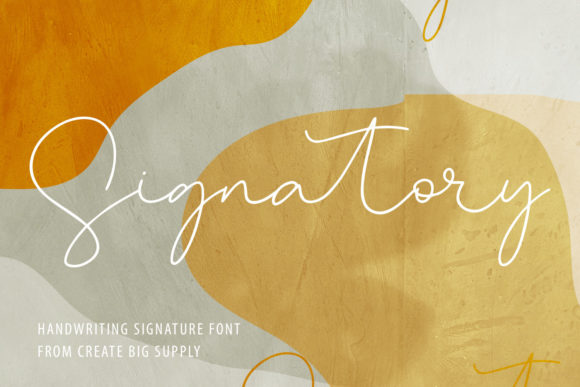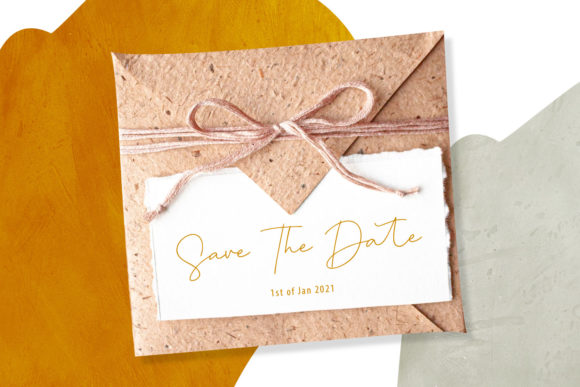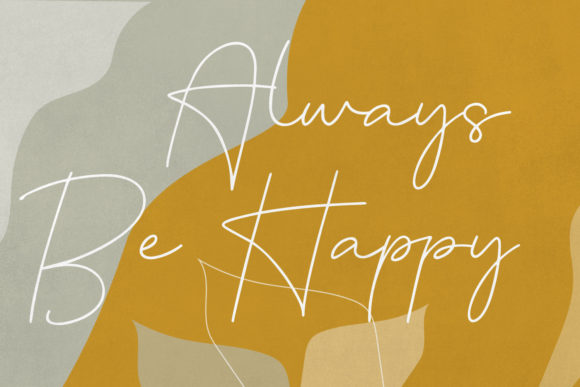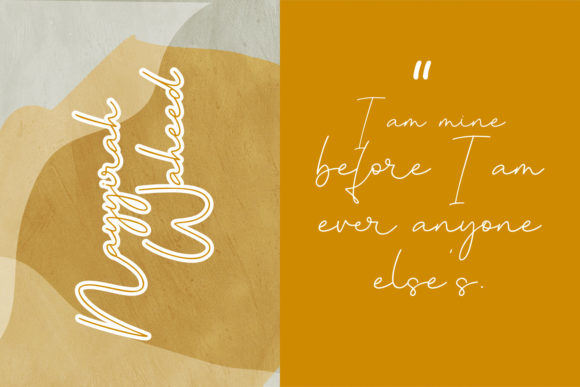
About Signatory Font
Signatory is a thin lettered and graceful script font. Fall for its ravishing style and use it to create gorgeous wedding invitations, beautiful stationary art, eye-catching social media posts, and much more!